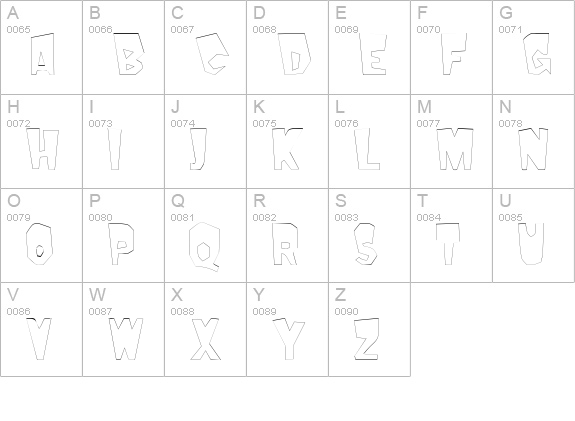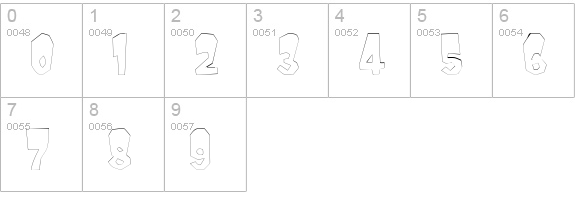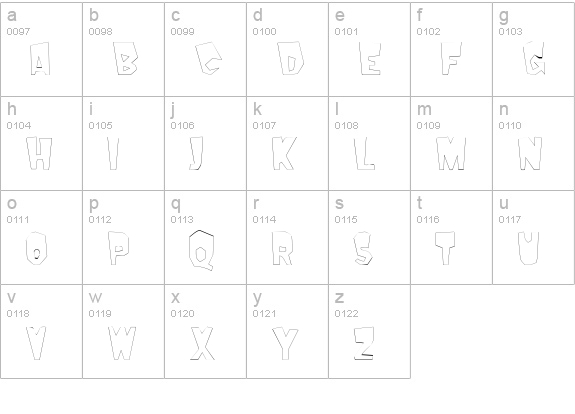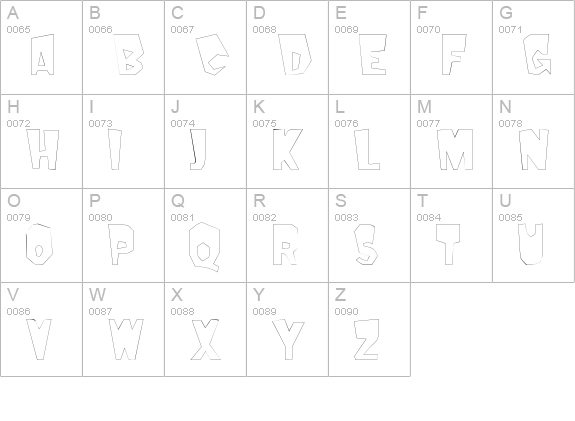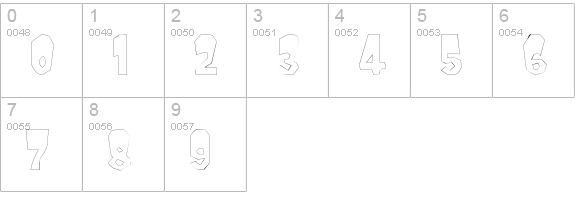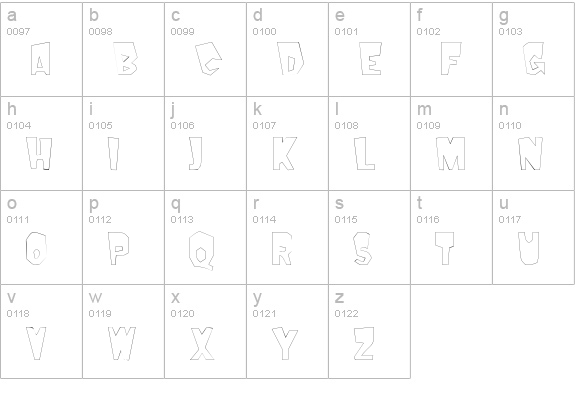
MondoOutline Font Details
MondoOutline font is a stylish and modern typeface that exudes sophistication and elegance. Its sleek and clean outlines make it perfect for a variety of design projects, from branding to editorial layouts. The font's balanced proportions and subtle detailing give it a timeless appeal that is sure to elevate any design it is used in. What makes MondoOutline font even more appealing is that it is available for free download at FontsMarket.com. This means that you can easily access this high-quality font without any cost, making it a valuable addition to your font collection. Whether you are a professional designer looking for a fresh typeface for your next project or a hobbyist creating personal designs, MondoOutline font is a versatile and attractive option that won't disappoint. Download it today and see how it can enhance your creative work!